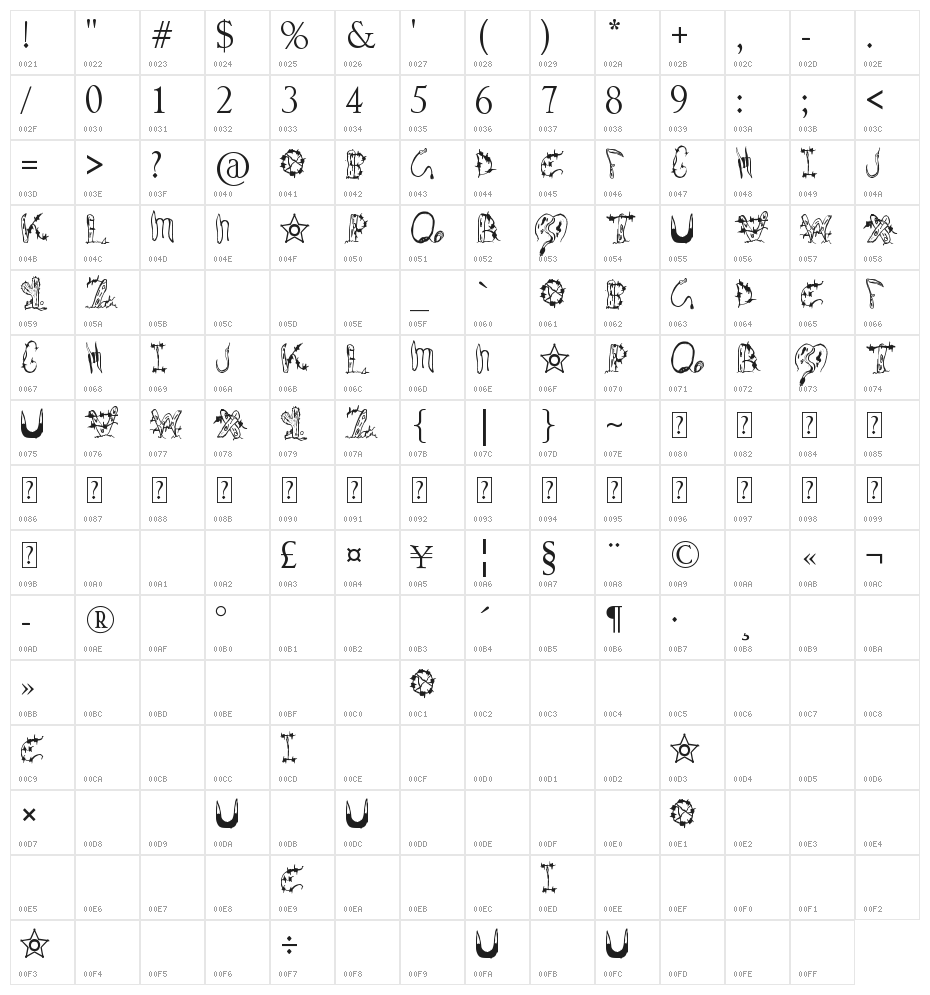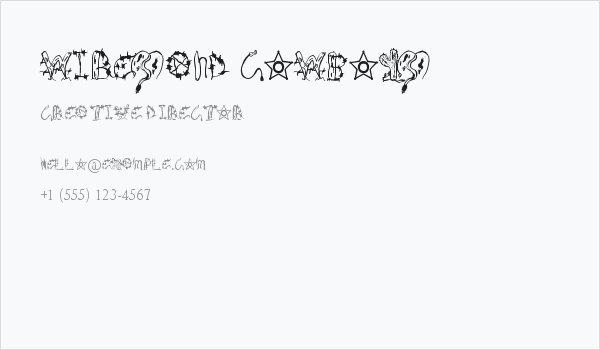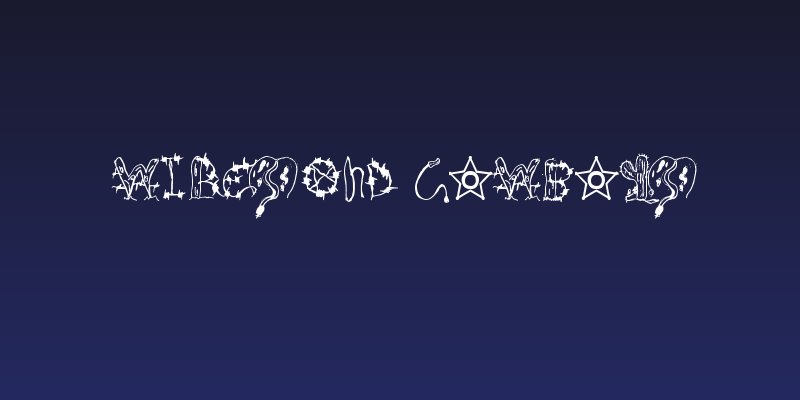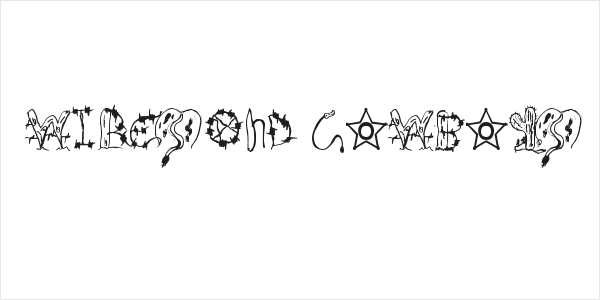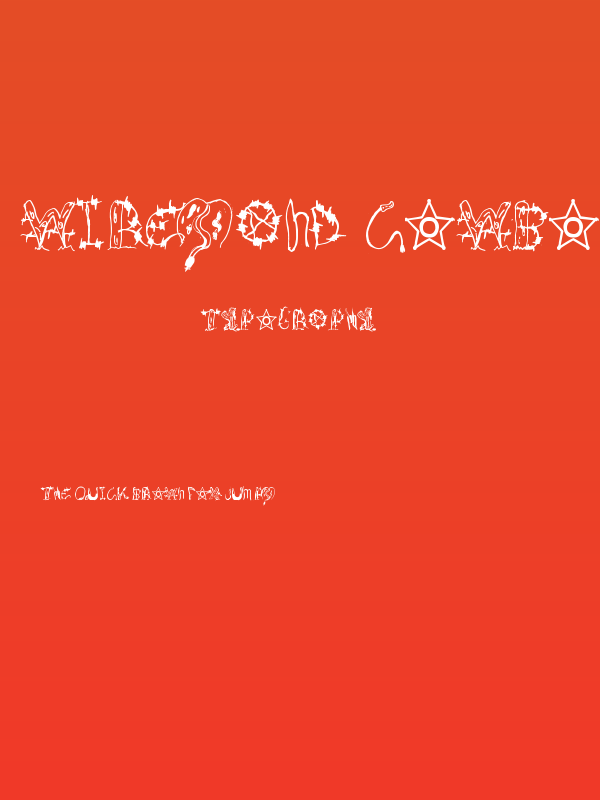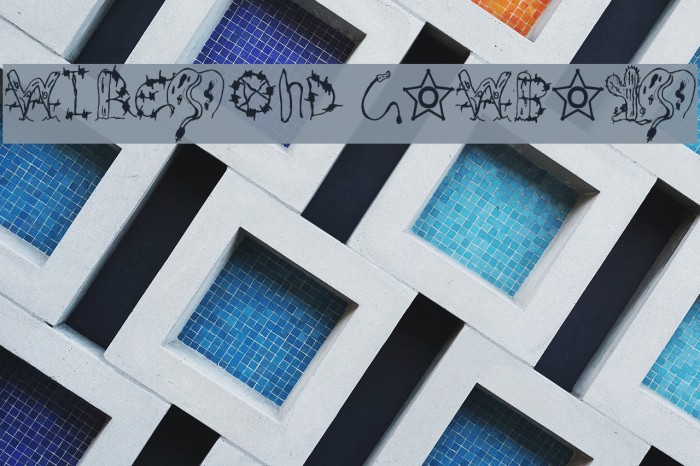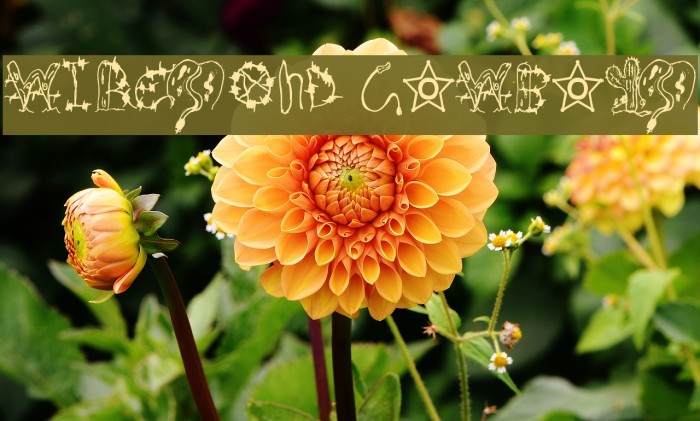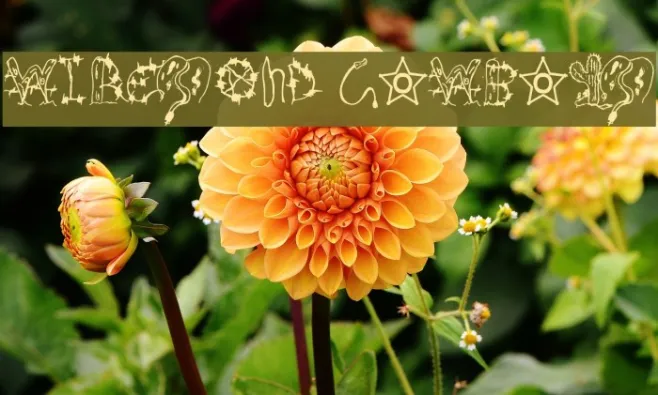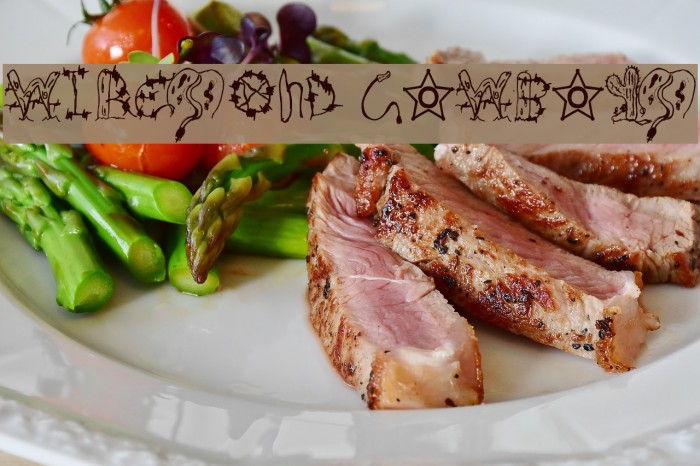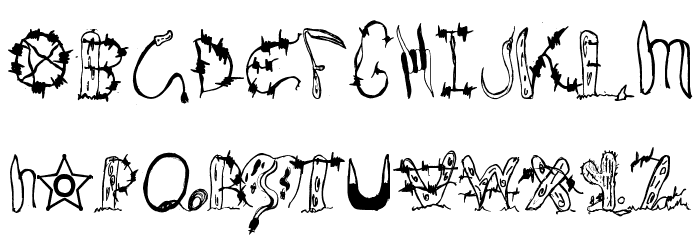
Wires and Cowboys Font
| Caso d'uso | Headlines, Logos, Themed Designs |
| Progetti proposti | Ideal for Western-themed posters, event invitations, themed restaurant menus, and novelty products. |